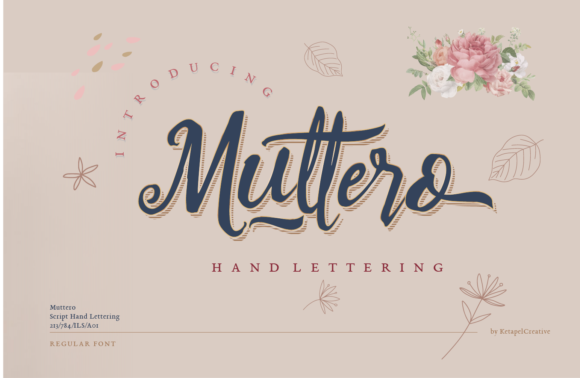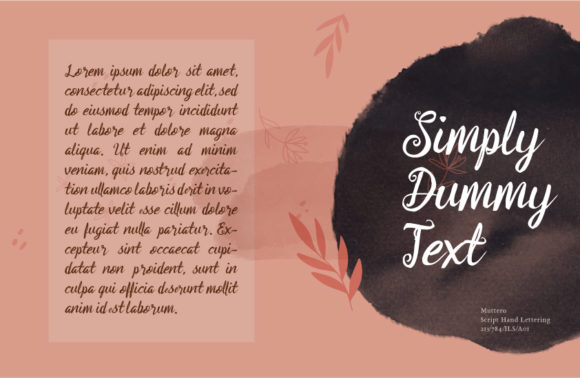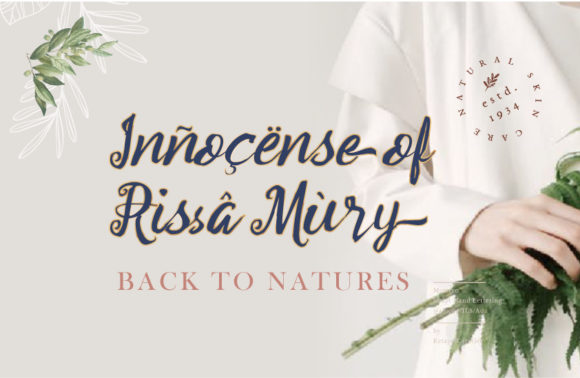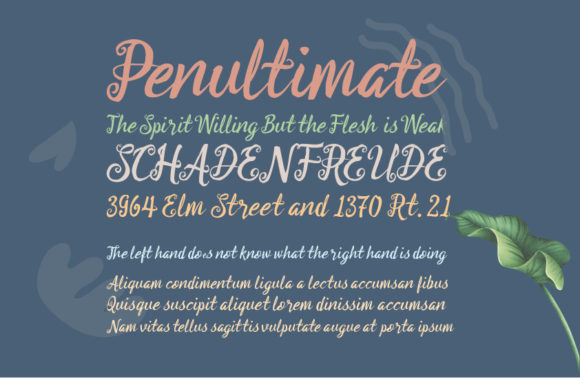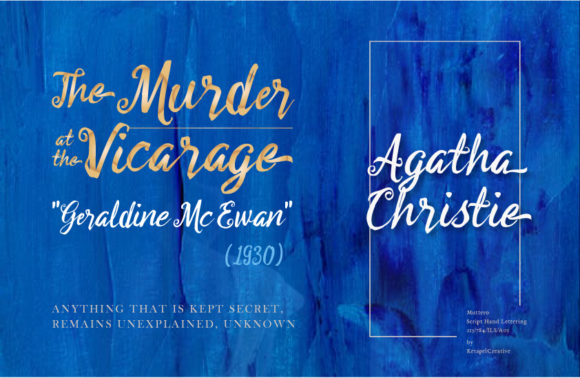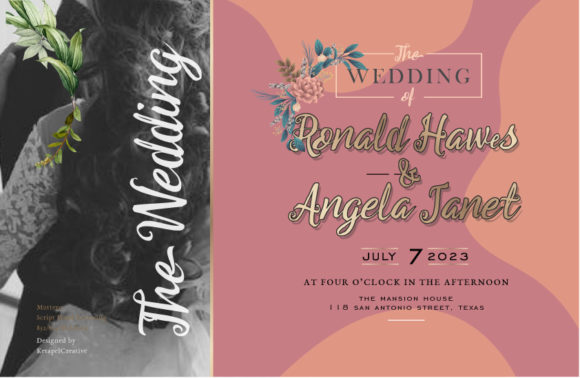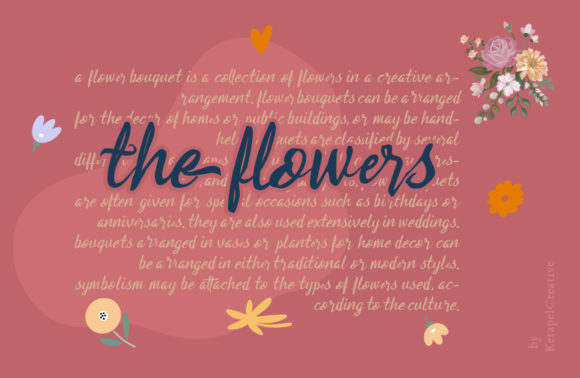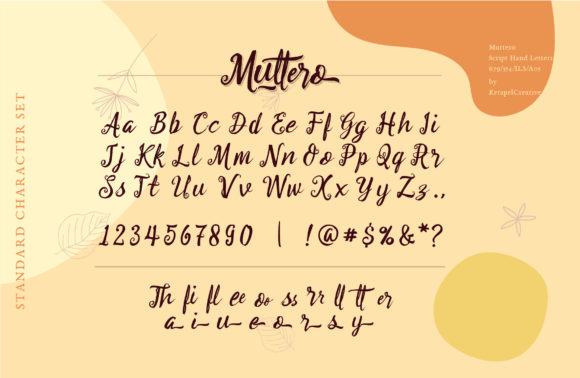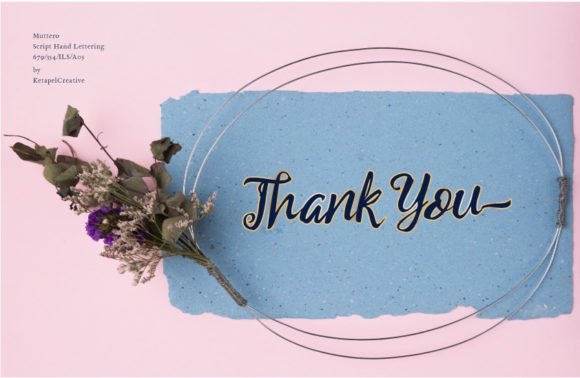
HomeScript FontsMuttero Font Script Fonts Muttero Font FacebookXPinterestWhatsApp Muttero Font Poster 2 Muttero Font Poster 3 Muttero Font Poster 4 Muttero Font Poster 5 Muttero Font Poster 6 Muttero Font Poster 7 Muttero Font Poster 8 Muttero Font Poster 9 About Muttero Font Muttero is a gorgeous hand-lettered script with an authentic twist. Fall in love with its unique charm! DOWNLOAD ON CREATIVE FABRICAThis font is sold and delivered by Creative Fabrica. Font Canyon may earn a commission if you buy through this link. People also explored Woliu Maners Font Child Pencila Font Sunflower Font Alexander Arnold Font Valentine Together Font Sometime Font Bintaro Font Rama Gothic M Special Butterfly Font 275 0 TagsMuttero Font Previous articleHelena Bonham FontNext articleRobina Font LEAVE A REPLY Cancel reply Comment: Please enter your comment! Name:* Please enter your name here Email:* You have entered an incorrect email address! Please enter your email address here Website: Save my name, email, and website in this browser for the next time I comment. Personal Use Free Letter Clips Personal Use Free Read more about this font Septhine Personal Use Free Read more about this font Vanilla Whale Personal Use Free Read more about this font Bebas Neue Font Personal Use Free Read more about this font BLOG Exploring Font Trends Shaping Communication in the Digital Era Fonts, like all design elements, are subject to trends. They play a crucial role in communicating a brand's personality,... Modern Sans-Serif Fonts That Brands Love in 2025 Where to Buy American Fonts Online in 2024 Best Fonts for YouTube Videos: Make Your Thumbnails Stand Out